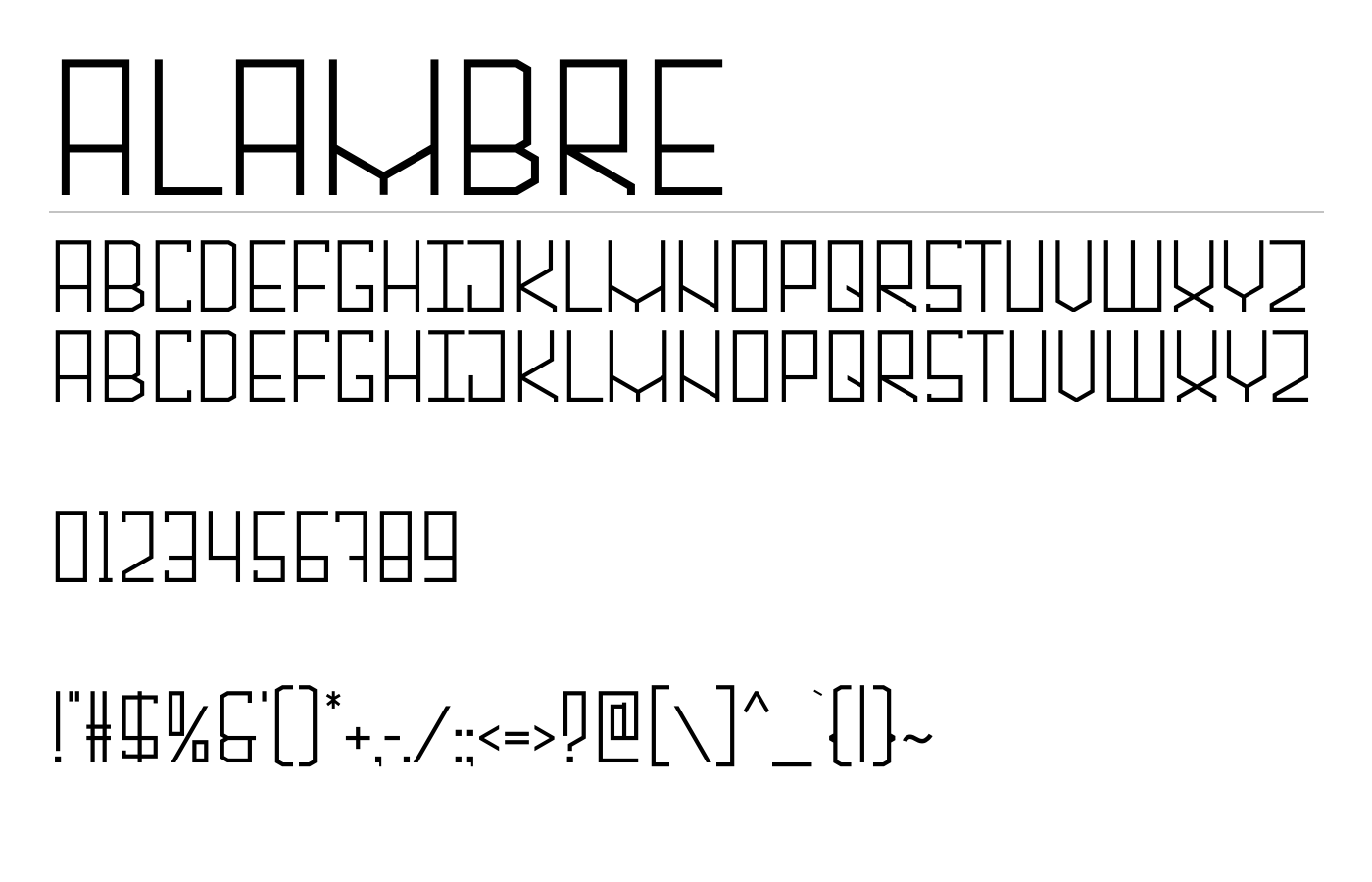
Alambre is a modern, geometric sans serif font characterized by its tall, narrow letterforms and clean, straight lines that create a sleek, wireframe look. Its consistent thin strokes and minimal contrast give it a technical, futuristic feel, making it ideal for contemporary branding, digital interfaces, and headlines where a modern and structured aesthetic is desired. This font works well in projects that seek a minimalist yet distinctive style with a touch of sophistication and innovation.
Alambre Font